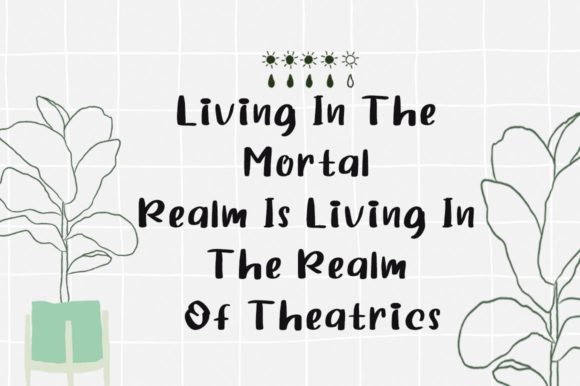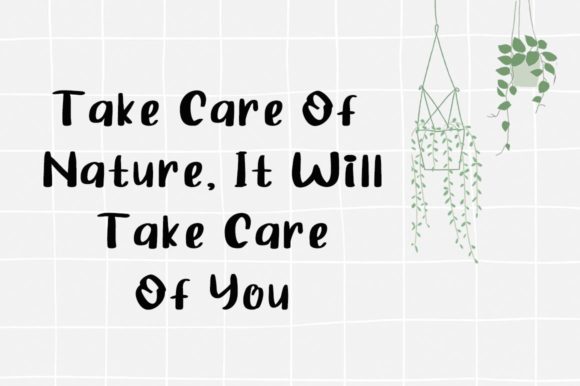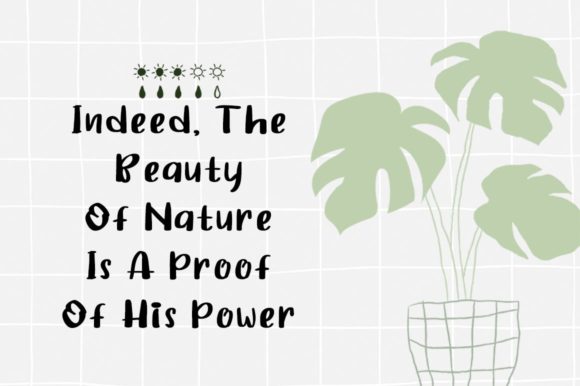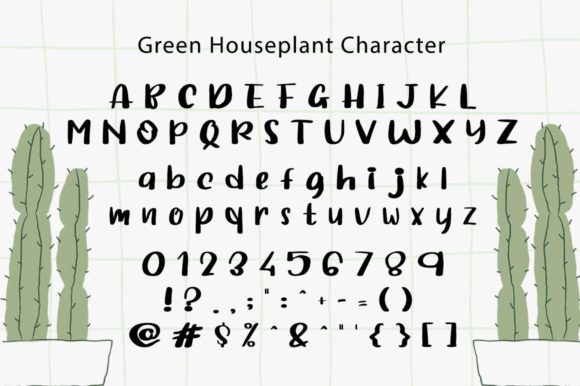
Introducing Green Houseplant Font: Elevate Your Designs with a Cute and Casual Handwritten Style
Are you on the hunt for a font that adds a touch of personality to your designs? Look no further than Green Houseplant Font! This adorable handwritten font is perfect for crafters, designers, and DIY enthusiasts looking to create stunning visual content. In this article, we’ll dive into the world of Green Houseplant Font, exploring its features, uses, and benefits.
What is Green Houseplant Font?
Green Houseplant Font is a charming, casual handwritten font designed to make your creative projects stand out. Its unique, whimsical style is reminiscent of handwritten calligraphy, making it perfect for a wide range of applications. Whether you’re working on a logo, heading, t-shirt design, or DIY project, Green Houseplant Font is sure to add a touch of elegance and sophistication.
Key Features of Green Houseplant Font
- Cute and Casual Style: Green Houseplant Font boasts a playful, laid-back vibe that’s perfect for designers and crafters who want to add a personal touch to their work.
- Handwritten Calligraphy: This font’s handwritten calligraphy style gives it a unique, organic feel that’s sure to capture the attention of your audience.
- Versatile: Green Houseplant Font is incredibly versatile, making it suitable for a wide range of projects, from logos and headings to t-shirts, letterhead, and signage.
- Easy to Read: Despite its whimsical style, Green Houseplant Font is surprisingly easy to read, making it perfect for body text and captions.
Uses for Green Houseplant Font
Green Houseplant Font is an incredibly versatile font that can be used in a variety of contexts. Here are some ideas to get you started:
- Logos and Branding: Use Green Houseplant Font to create a unique, memorable logo that reflects your brand’s personality.
- Social Media Graphics: Add a touch of personality to your Instagram posts, Facebook graphics, and other social media content with Green Houseplant Font.
- T-Shirt Designs: Create eye-catching t-shirt designs that showcase your creativity and style.
- DIY Projects: Use Green Houseplant Font to add a personal touch to your DIY projects, such as handmade cards, gift tags, and home decor.
- Signage and Labels: Green Houseplant Font is perfect for creating eye-catching signage and labels for events, businesses, and products.
Benefits of Using Green Houseplant Font
So why choose Green Houseplant Font for your next project? Here are just a few benefits of using this amazing font:
- Unique Style: Green Houseplant Font offers a unique, one-of-a-kind style that’s sure to set your designs apart from the crowd.
Green Houseplant Font is a game-changer for designers and crafters looking to add a touch of personality to their work. With its cute and casual handwritten style, versatility, and ease of use, this font is perfect for a wide range of projects. Whether you’re working on a logo, social media graphics, t-shirt designs, or DIY projects, Green Houseplant Font is sure to elevate your designs and help you stand out from the crowd.